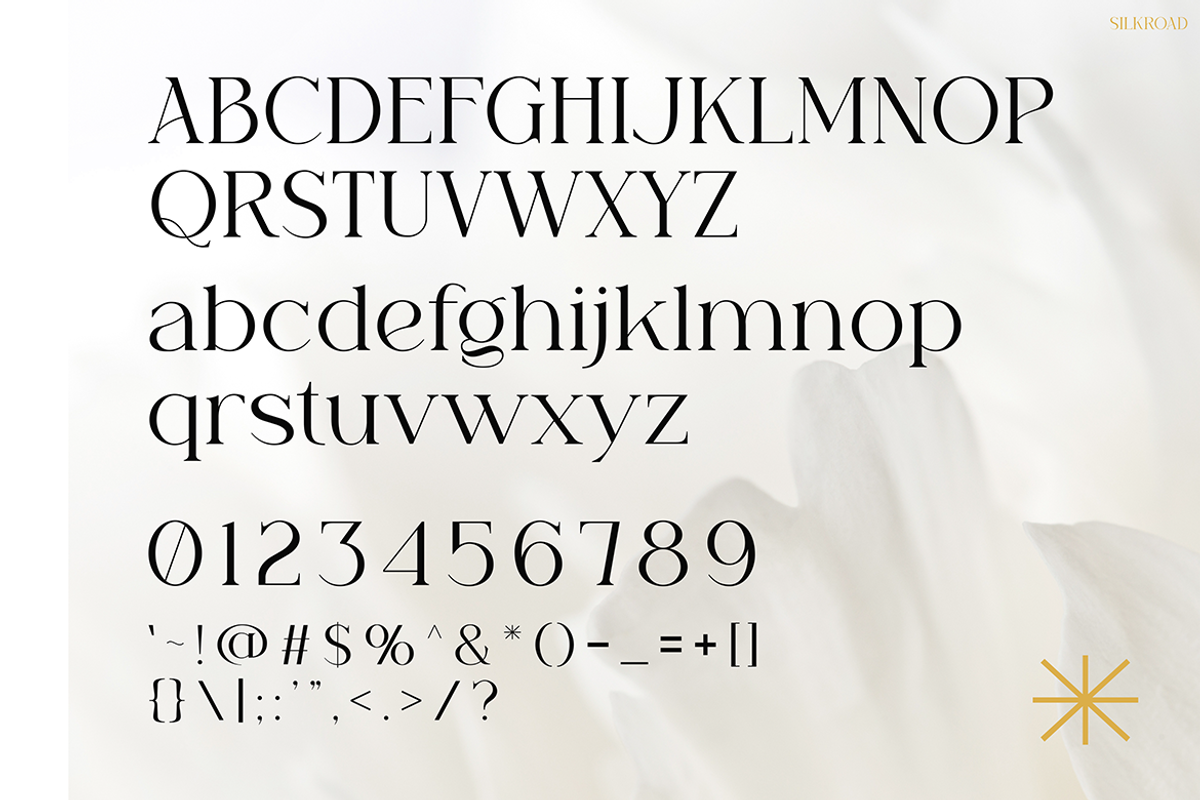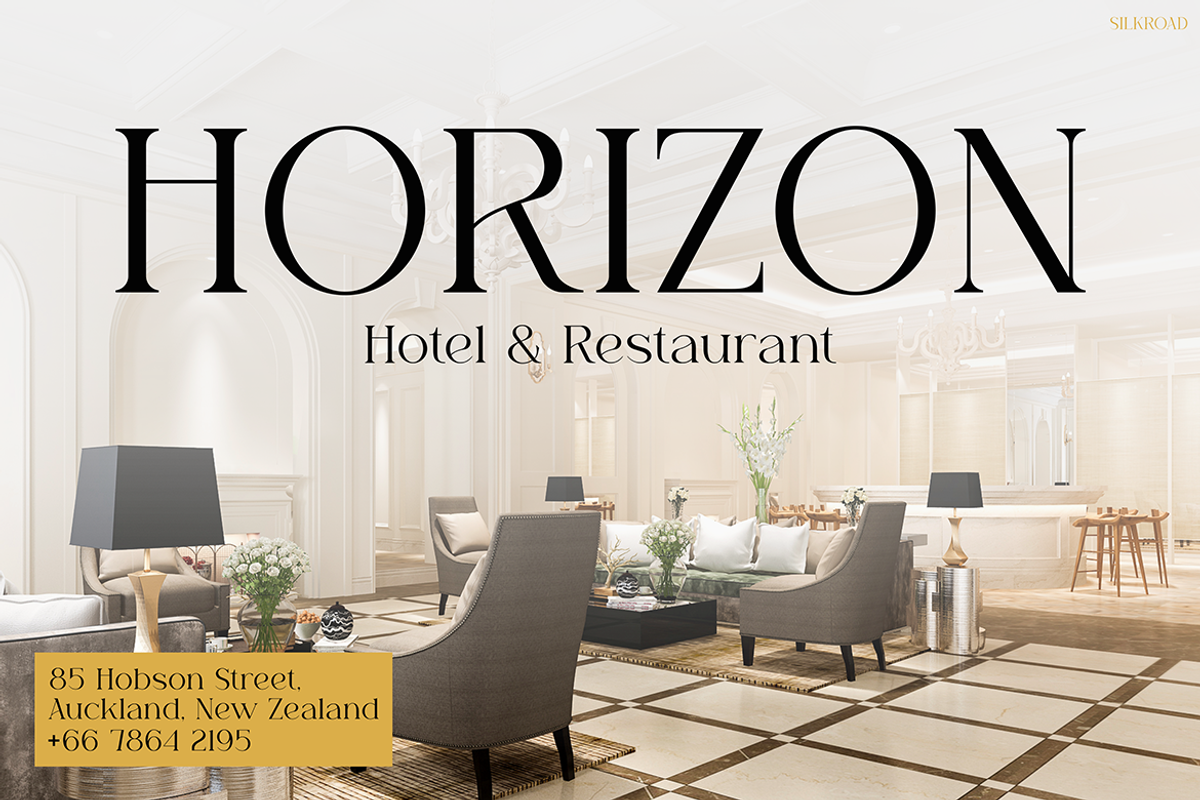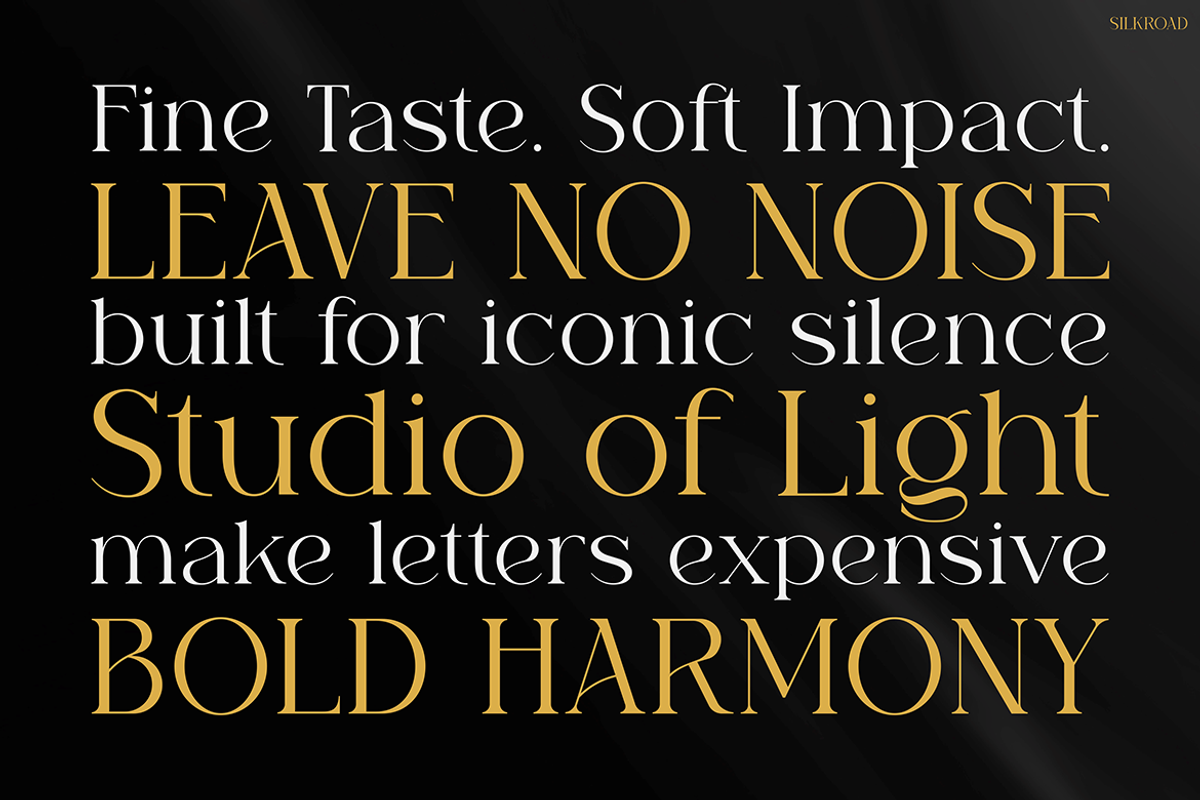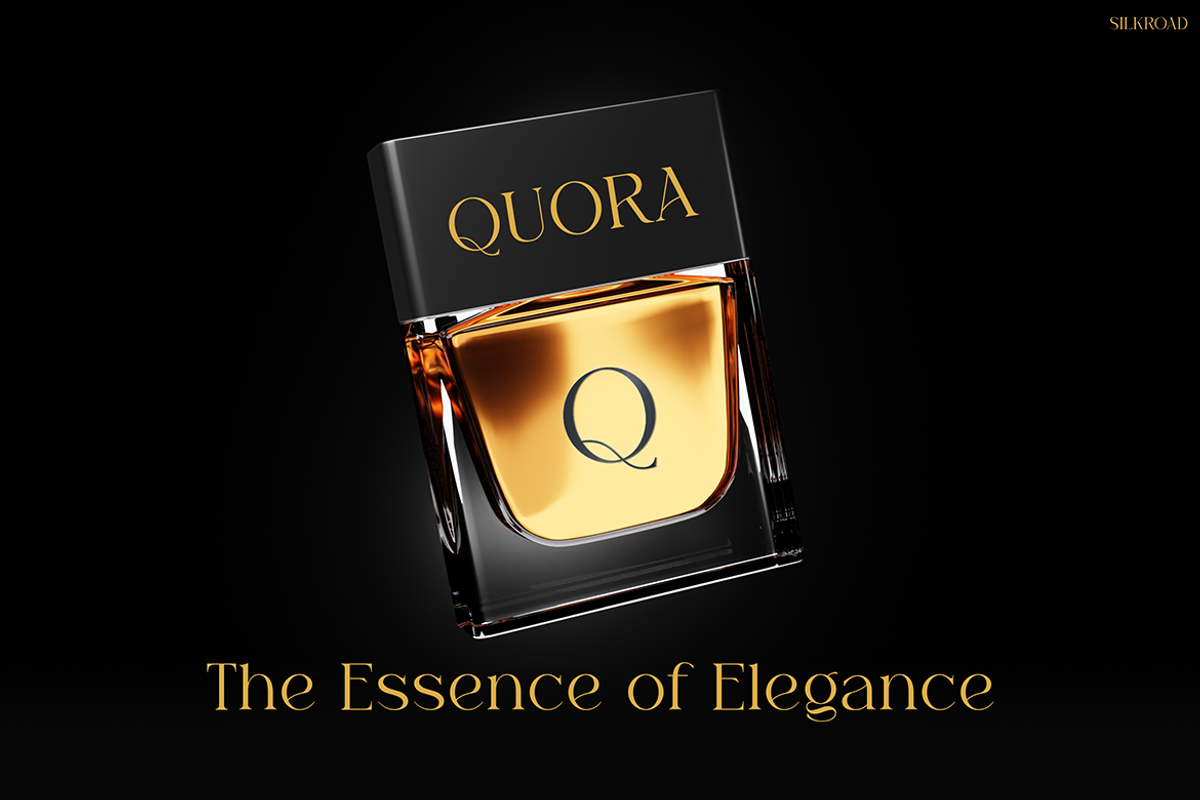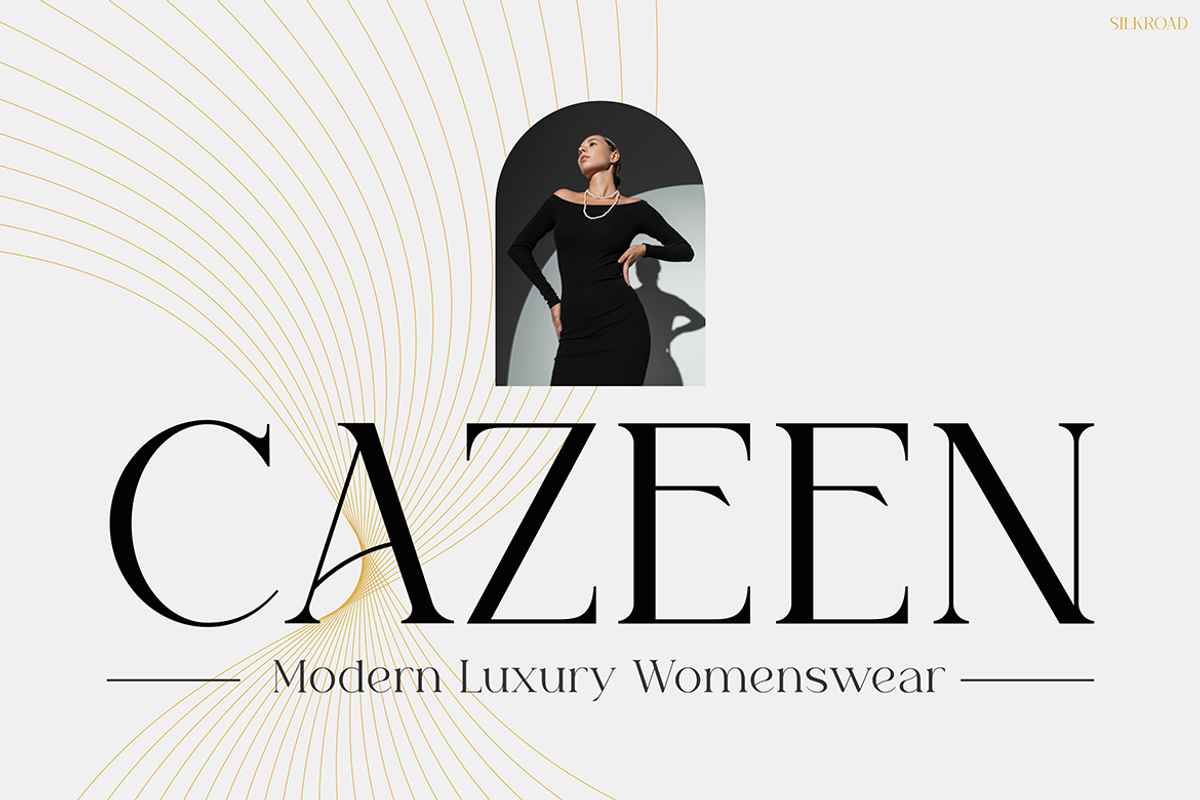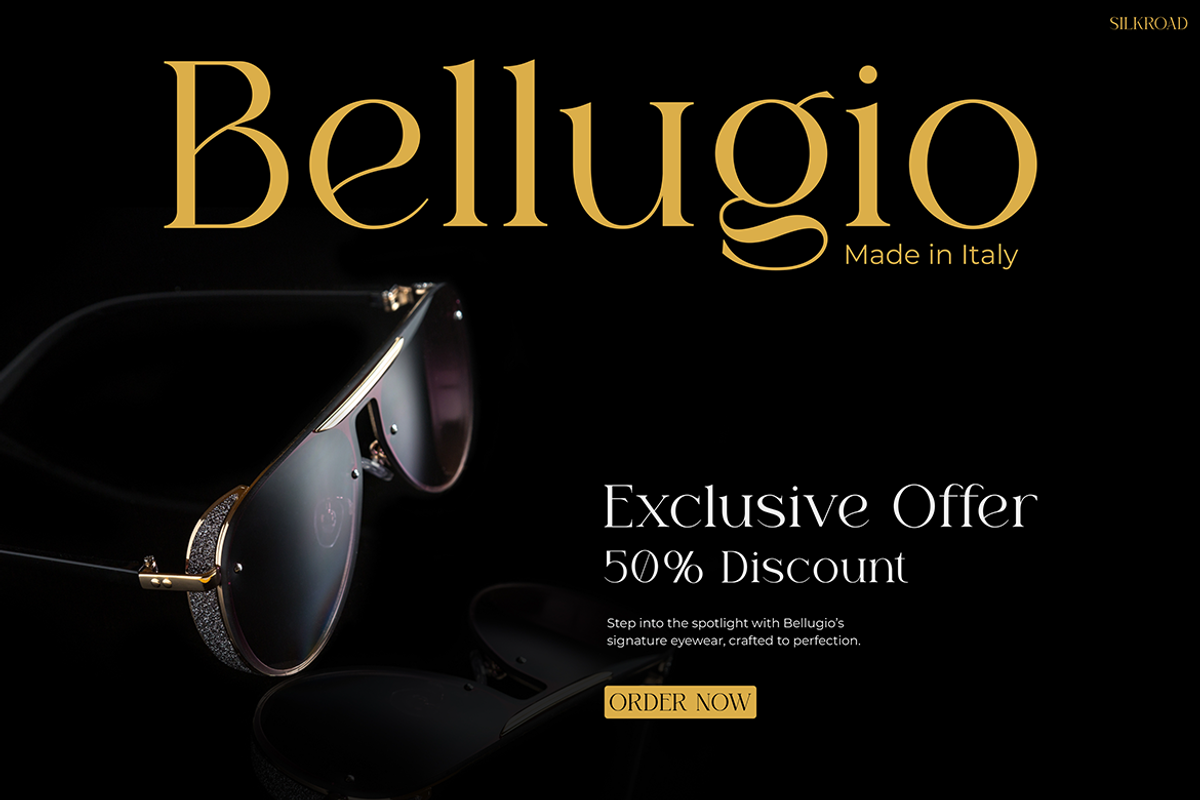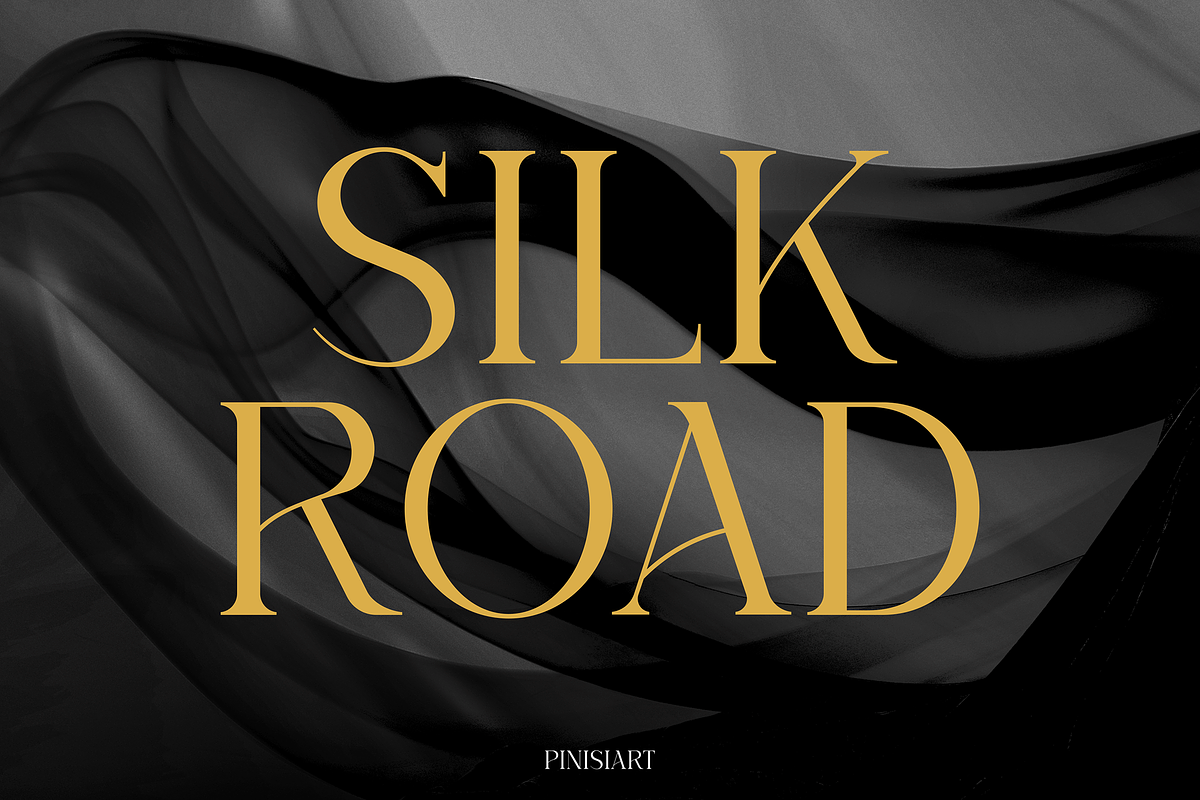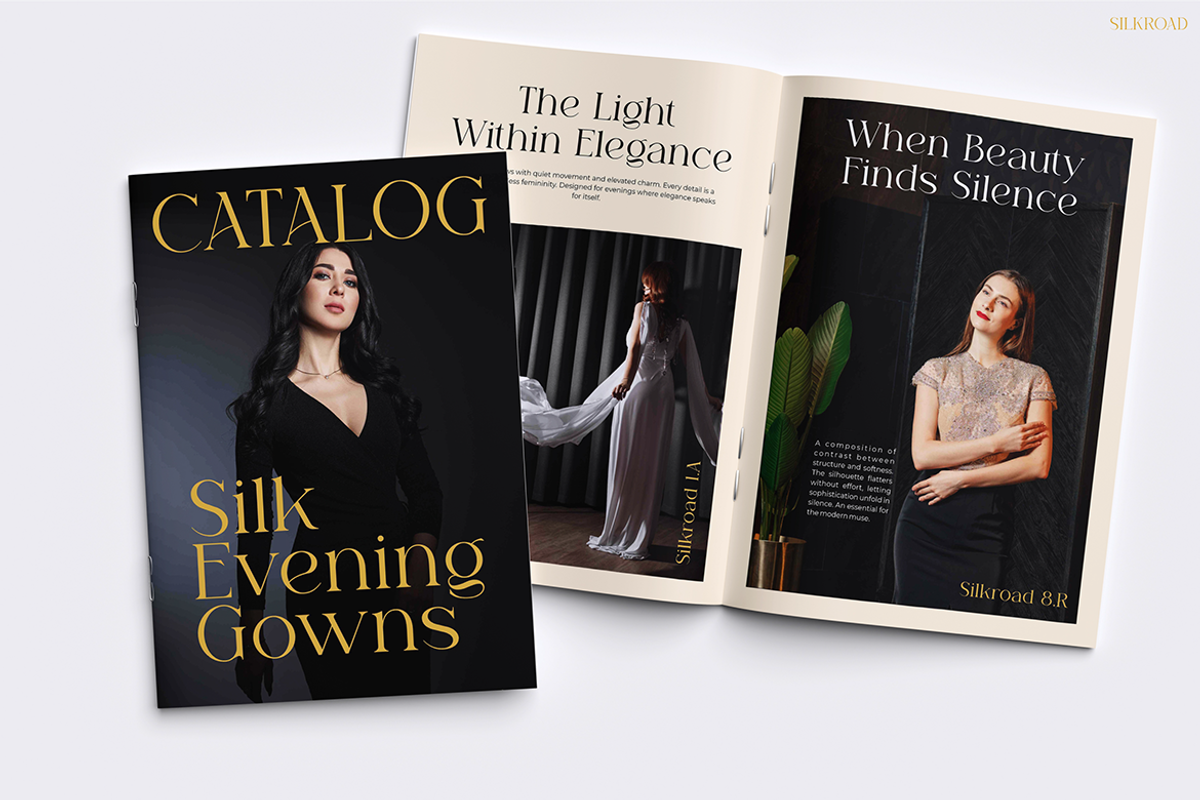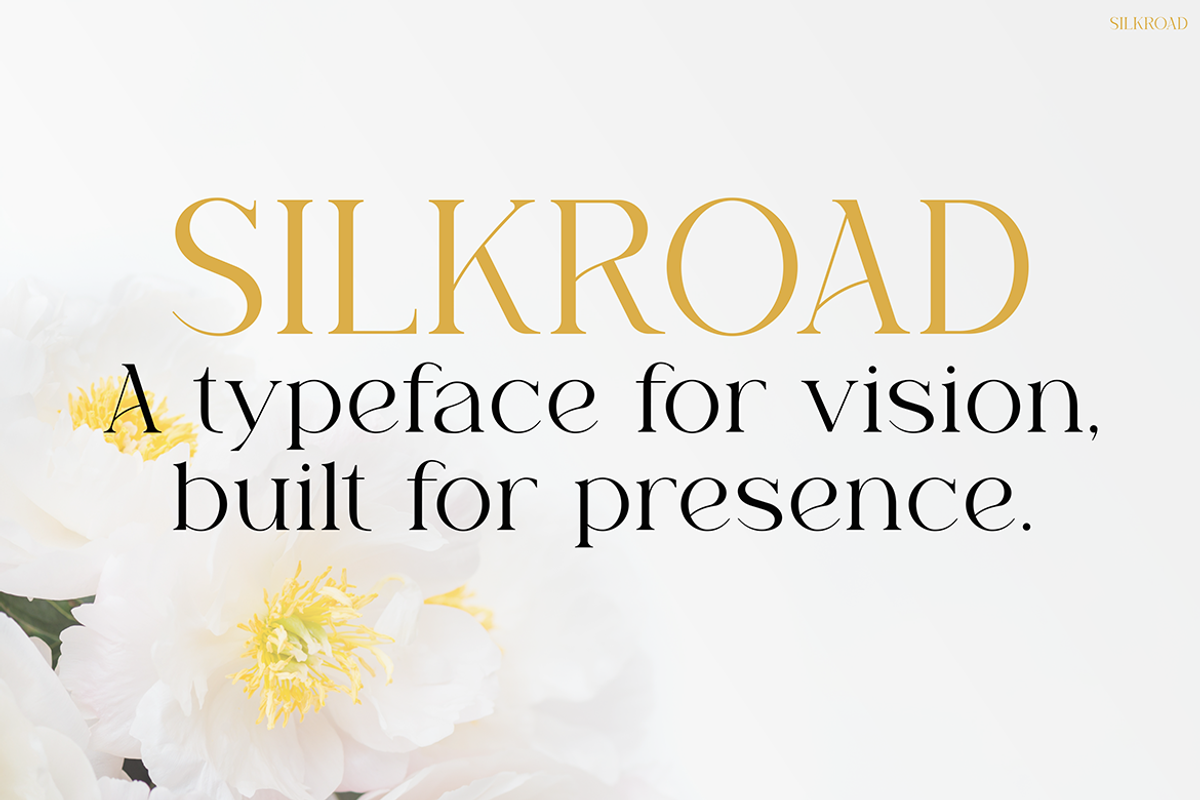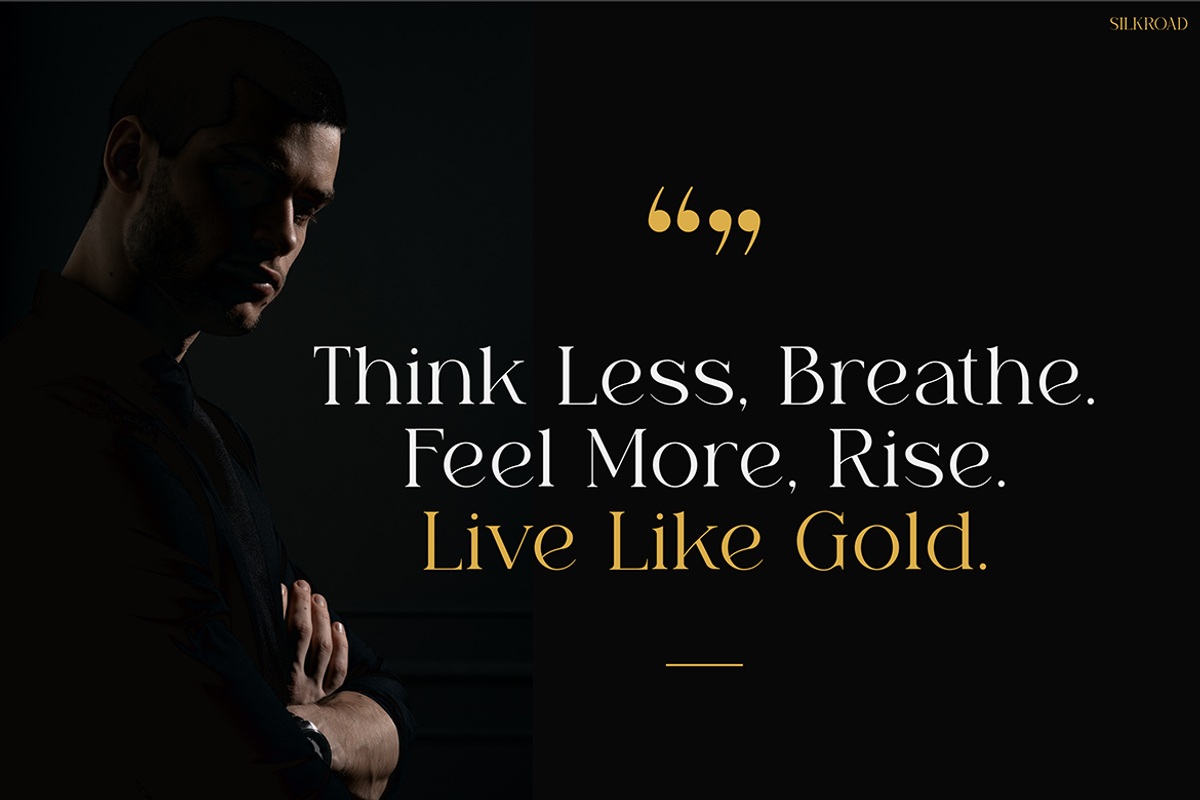
Silkroad
Instagram Font Silkroad – Elegant Luxury for Modern Branding Instagram Font Silkroad is a refined serif typeface that blends timeless beauty with modern flair. It’s perfect for bold branding and clean, high-end visuals. Every stroke feels intentional, delivering elegance with a whisper of power.
What sets Silkroad apart is its balance — sleek, soft, and confidently stylish. It features graceful curves, distinctive ligatures, and carefully spaced characters. Moreover, its versatile design makes it suitable for both digital and print use. Whether you’re crafting Instagram quotes or editorial layouts, Silkroad adds a luxurious finish to your message. Whether you’re creating luxury fashion content, magazine layouts, or premium Instagram posts, Silkroad elevates every design with class and poise.
In fact, this font was built for presence. As you can see in the preview, it elevates everything from fashion layouts and hotel promos to catalog covers and magazine ads. Its uppercase forms project sophistication, while the lowercase characters offer subtle rhythm and softness. Therefore, it feels at home in both statement headlines and detailed text compositions. As a result, your designs will look refined, clear, and visually impressive.